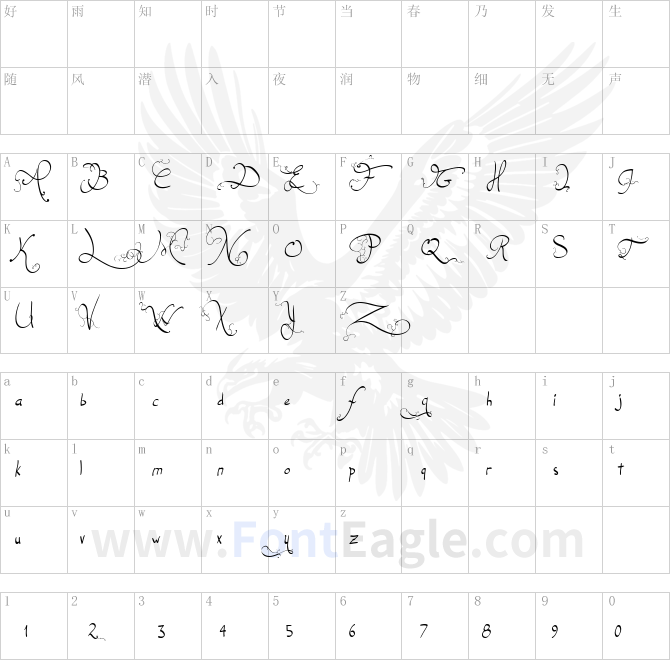
- Font name:Jellyka End_less Voyage
- Font Subfamily ID:Jellyka, End_less Voyage:Version 1.00
- Font Full Name:Jellyka End_less Voyage
- Font Version:Version 1.00 July 2008, initial release
- Postscript:JellykaEndlessVoyage
- Font Copyright:Typeface © CuttyFruty.com 2008